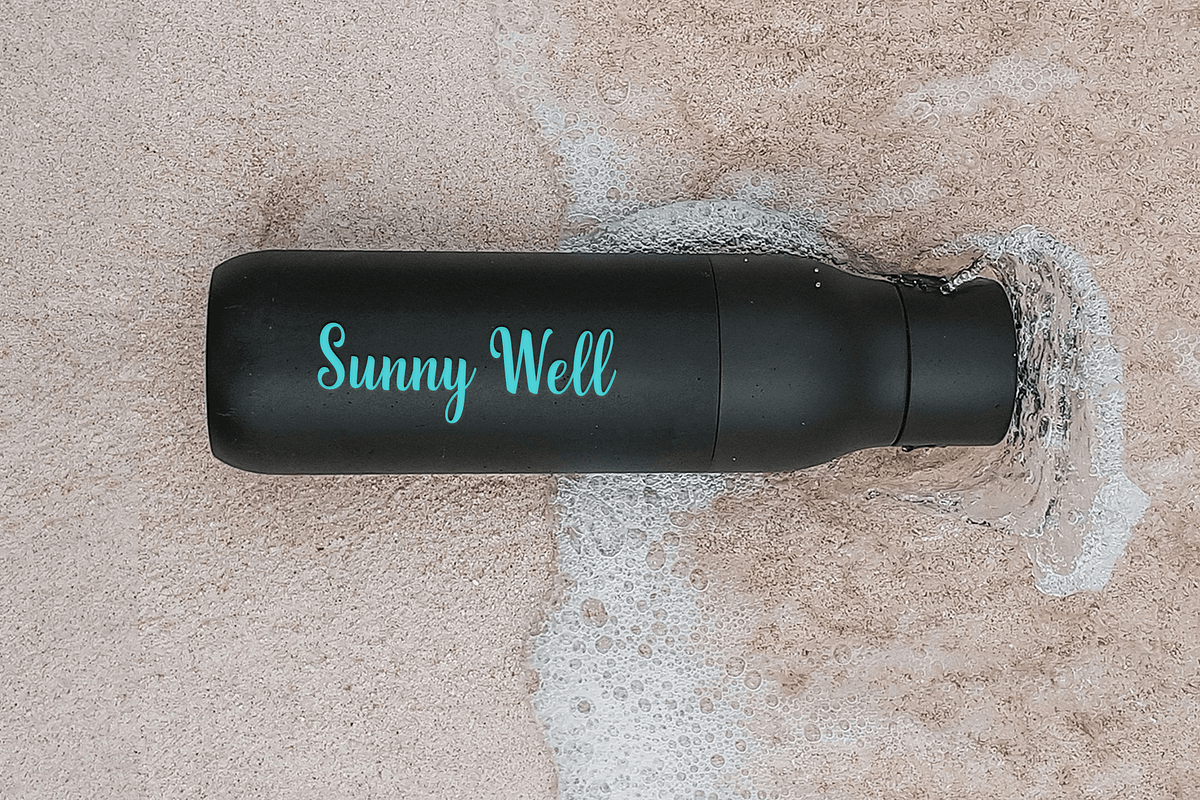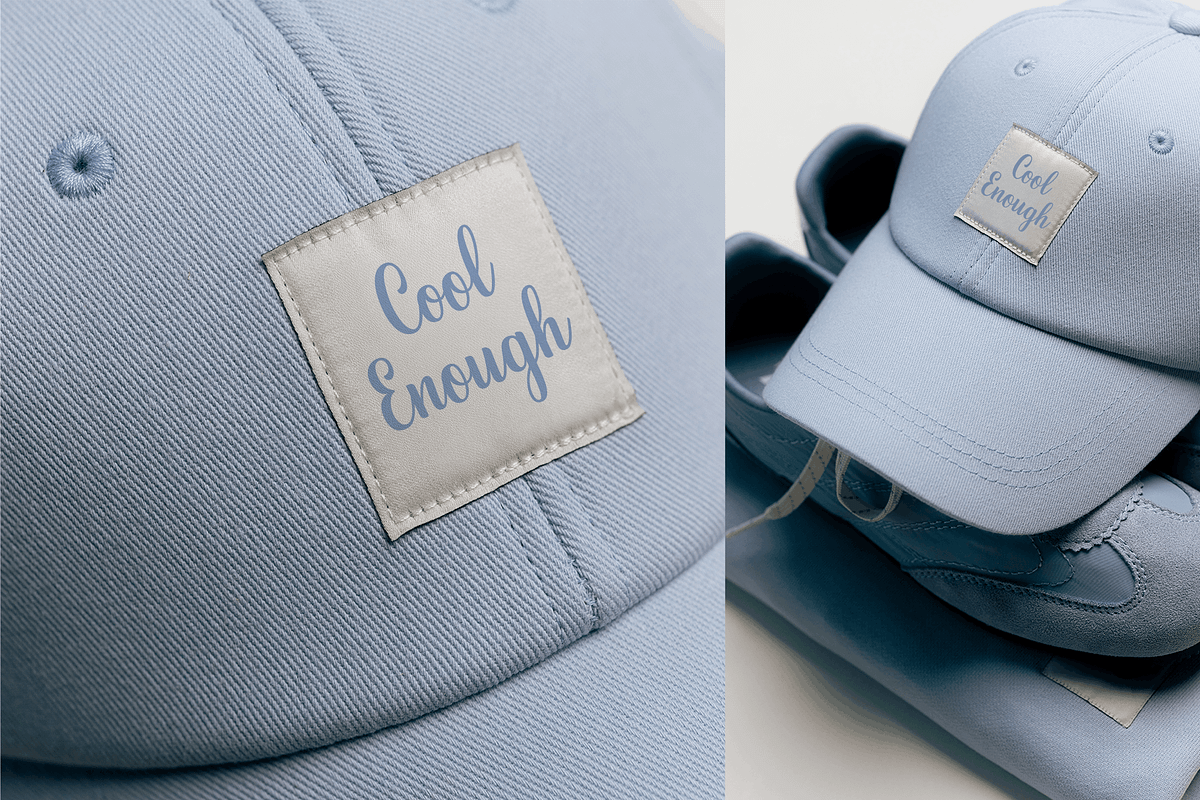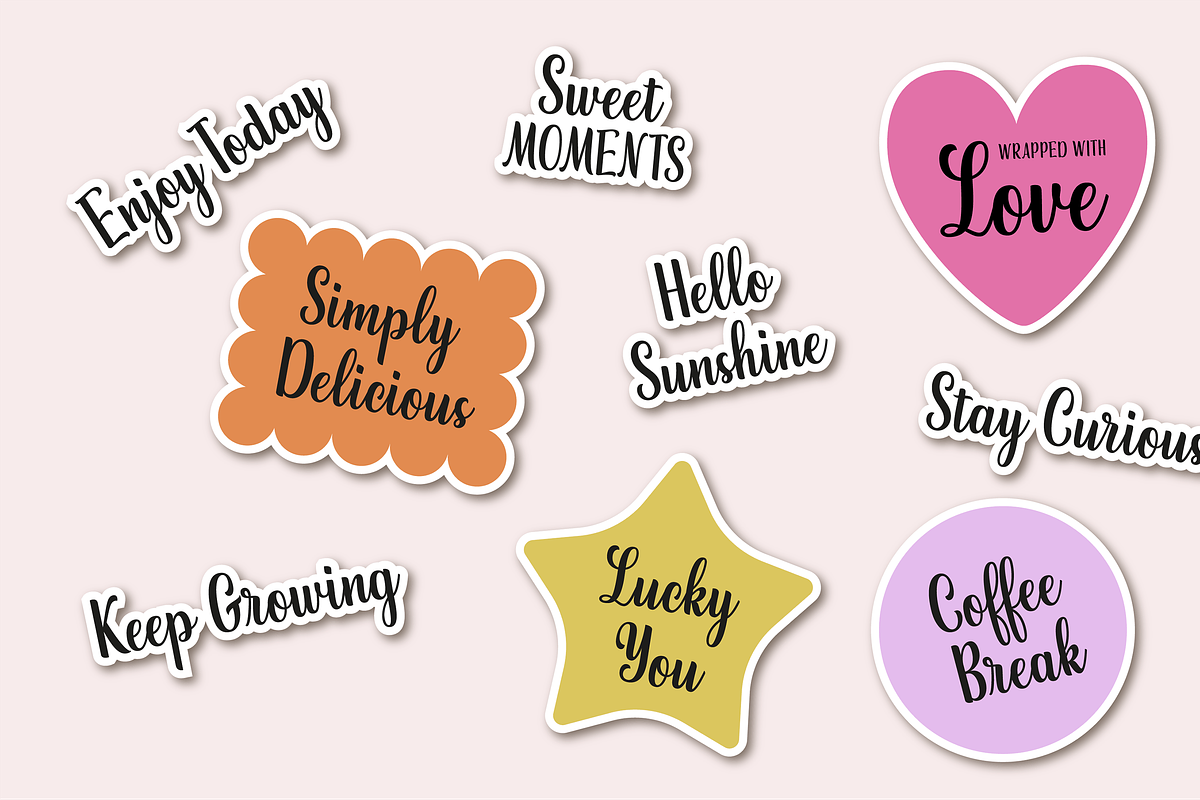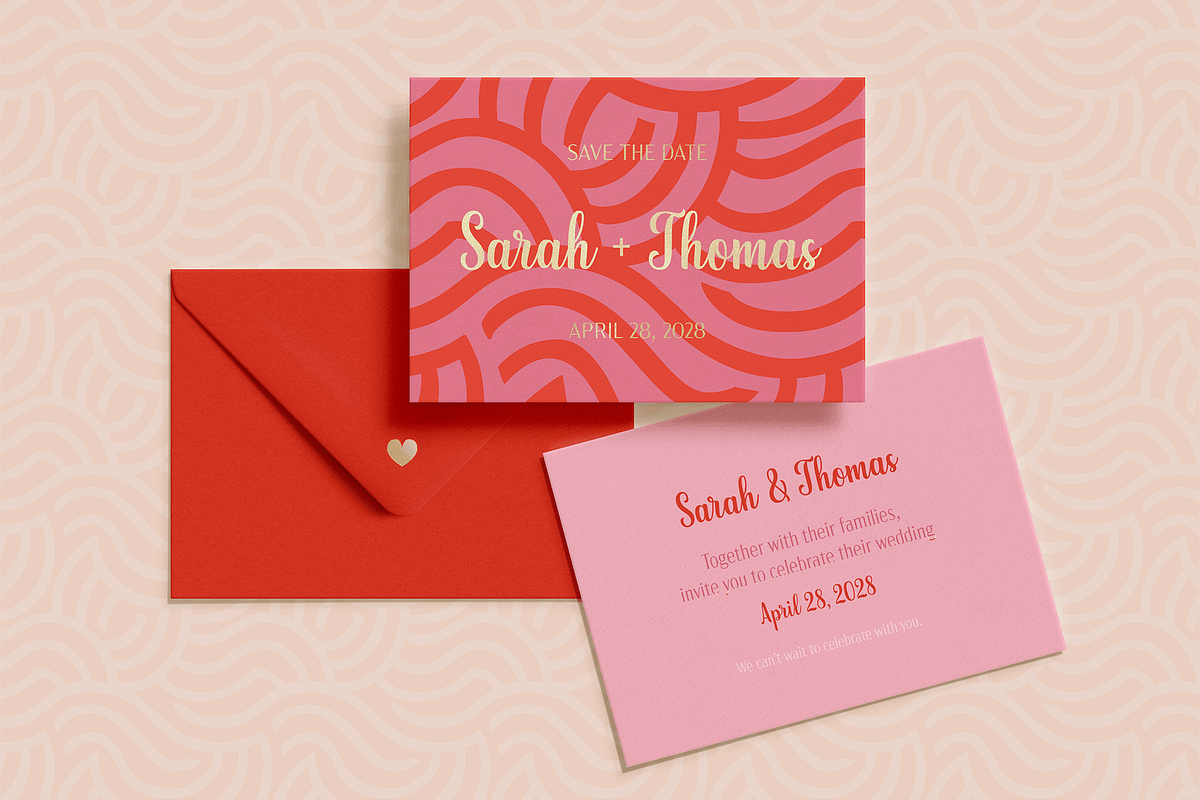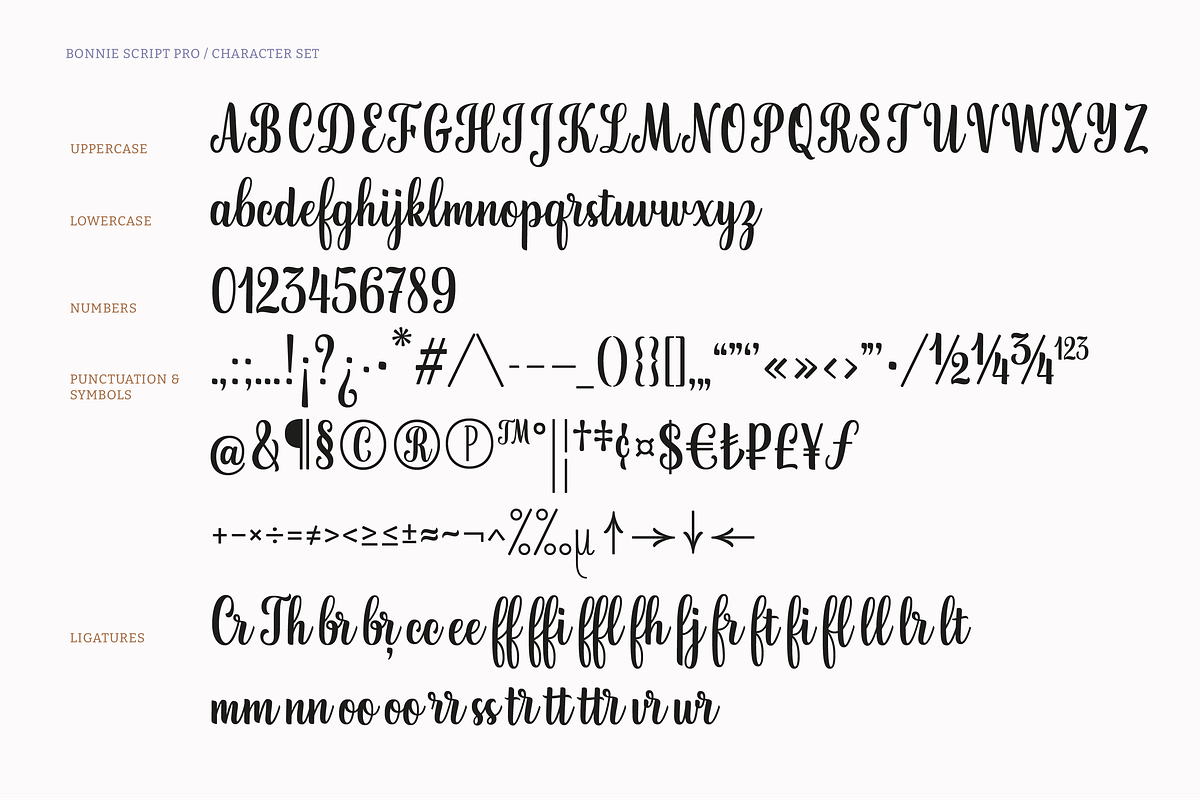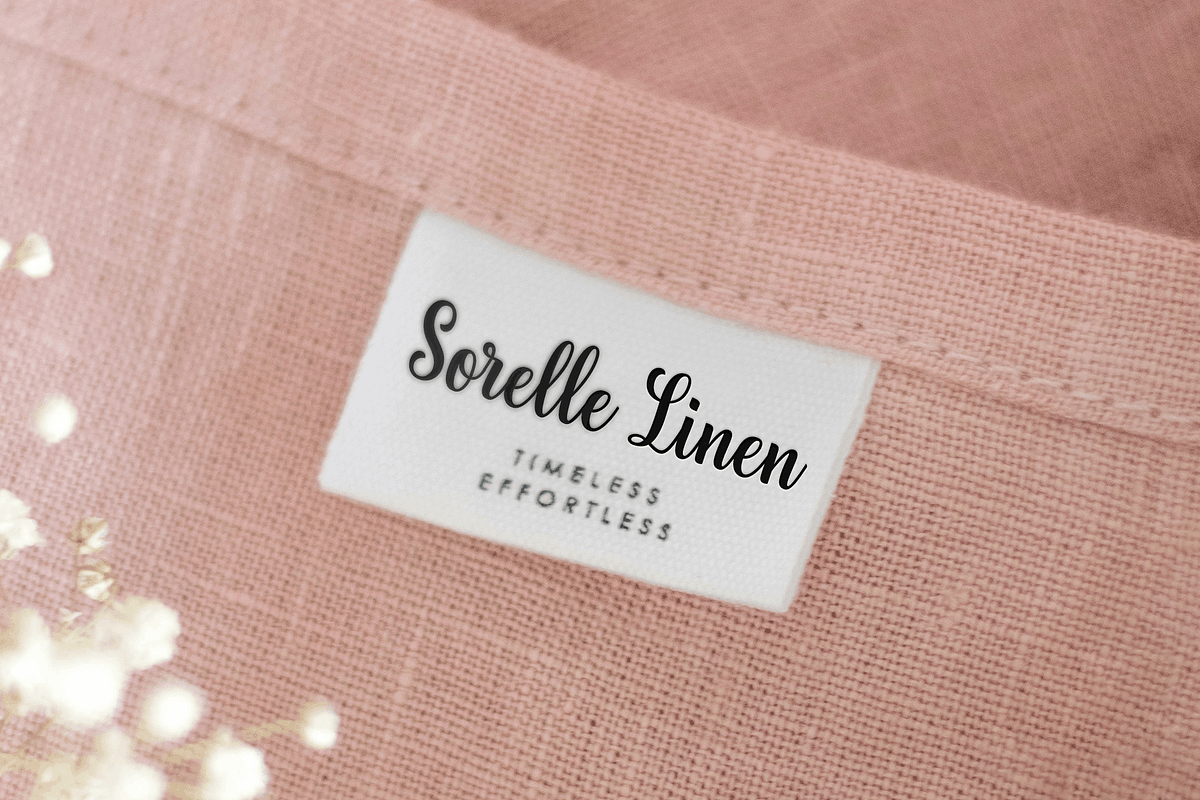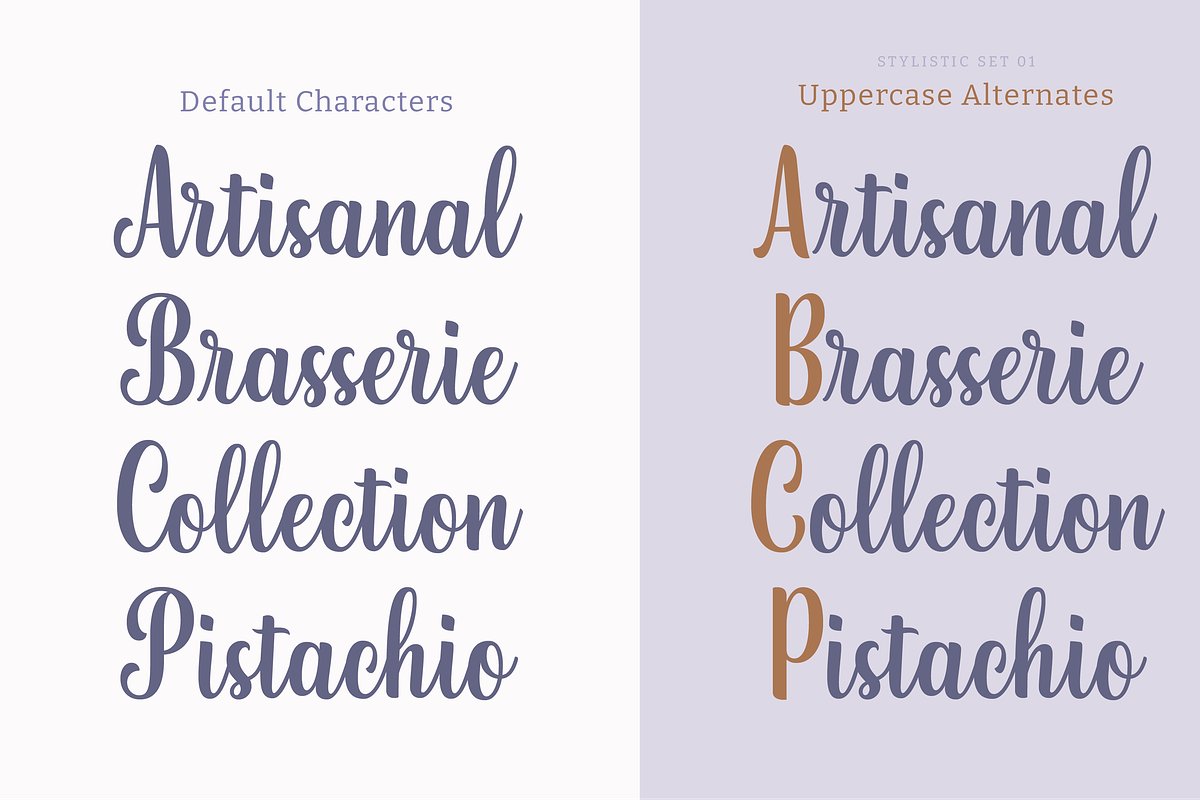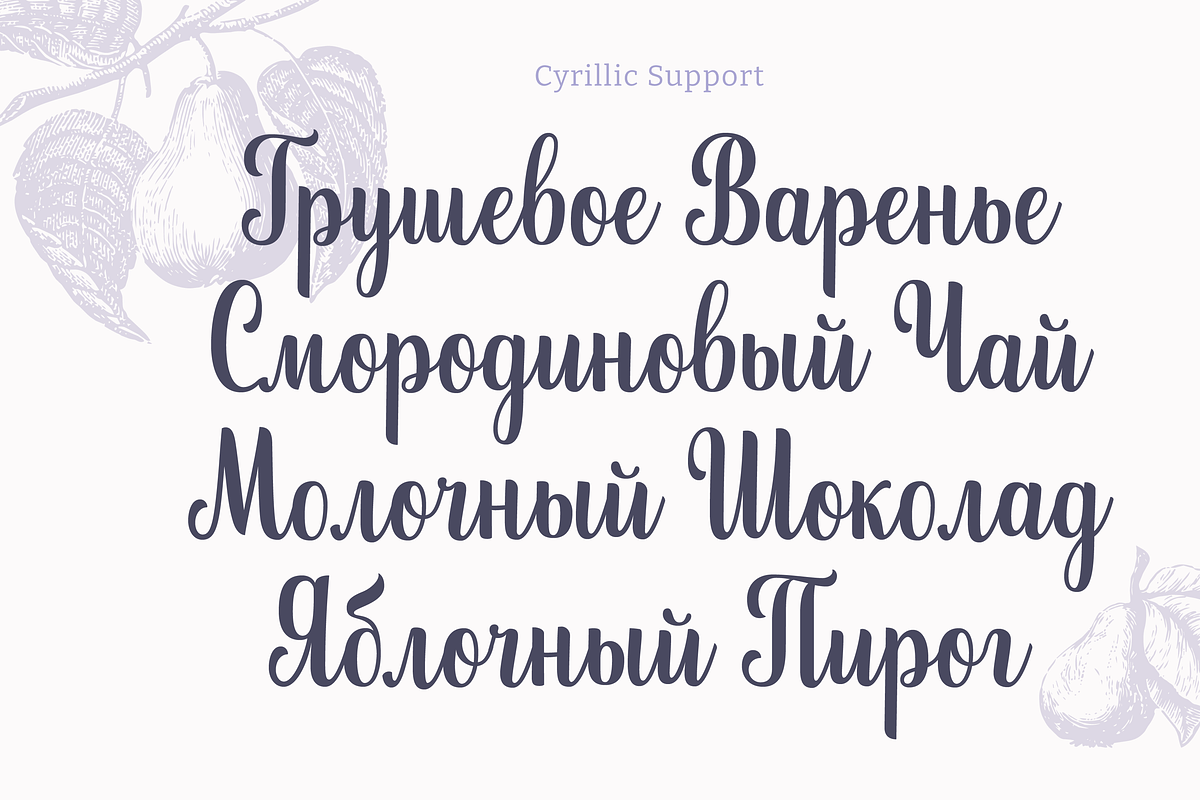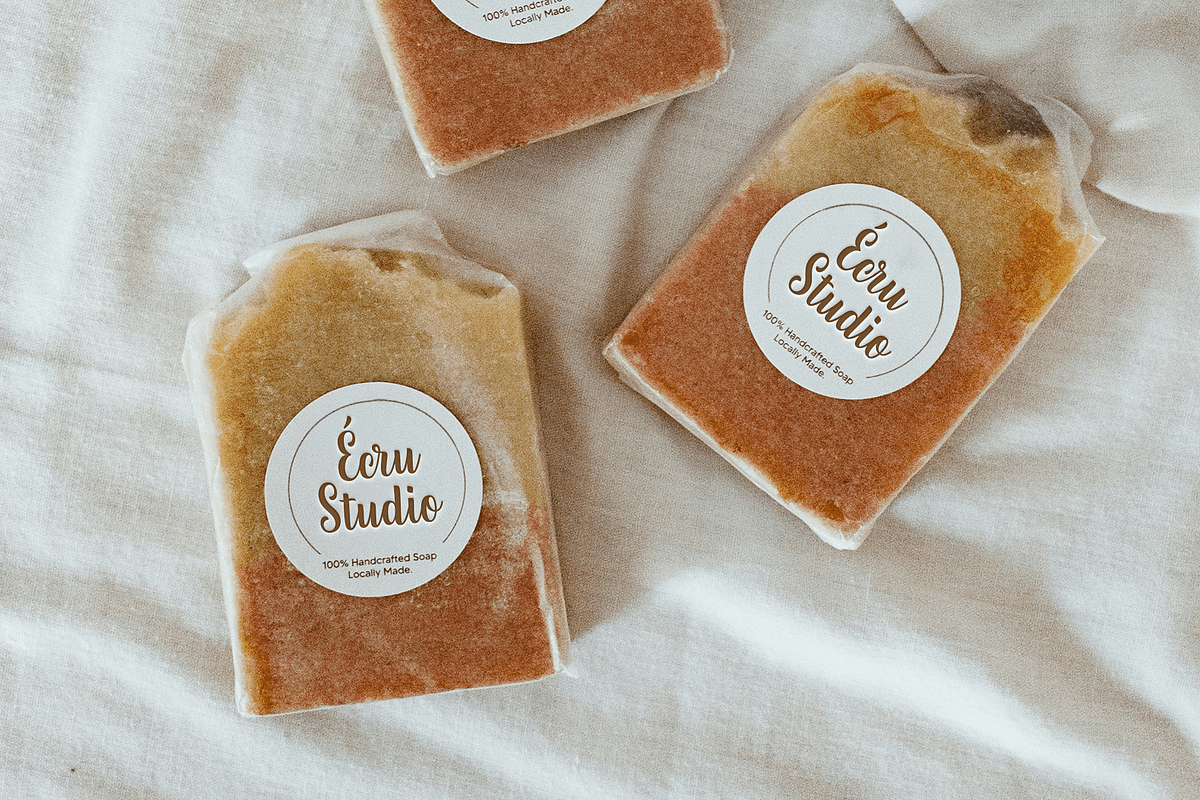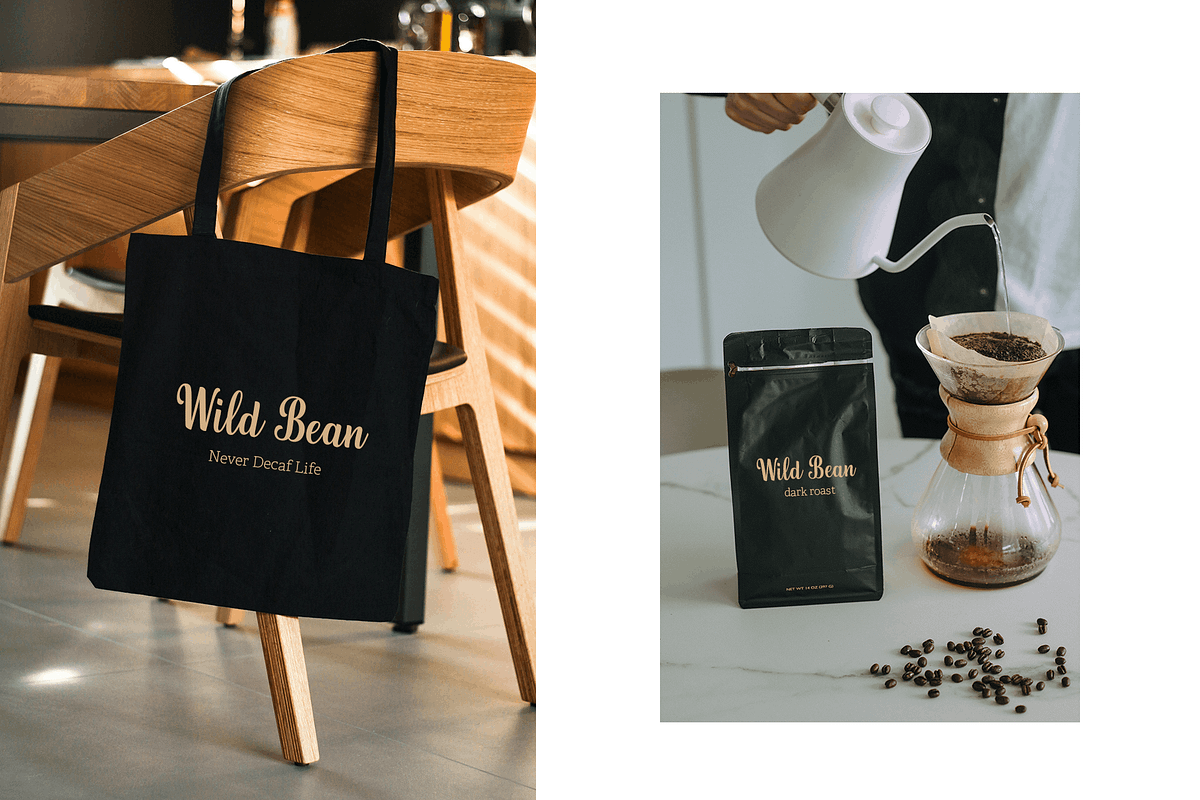
Bonnie Script Pro
Introducing Bonnie Script Pro
Originally released several years ago, Bonnie Script has been completely reimagined and carefully redrawn into a new, more refined typeface. Every letter has been revisited to improve rhythm, consistency, and usability while preserving the handwritten charm that inspired the original design.
The result is Bonnie Script Pro — a warm, flowing script inspired by modern calligraphy, natural handwriting, and vintage sign painting. Designed for today's creative workflows, it combines expressive letterforms with improved readability and a smoother overall texture.
Bonnie Script Pro is suitable for everything from elegant branding and packaging to wedding stationery, editorial design, social media graphics, and product labels. It feels equally at home in sophisticated brand identities and personal creative projects.
One of the biggest additions is extended multilingual support, now including both Latin and Cyrillic character sets. The typeface also features numerous ligatures and stylistic alternates that help create natural-looking lettering with minimal effort.
Perfect for
Logos & branding
Packaging
Wedding invitations
Greeting cards
Social media
Editorial design
Posters
Product labels
Quotes & signatures
Uppercase & lowercase
Latin + Cyrillic support
Numerals & punctuation
Stylistic alternates